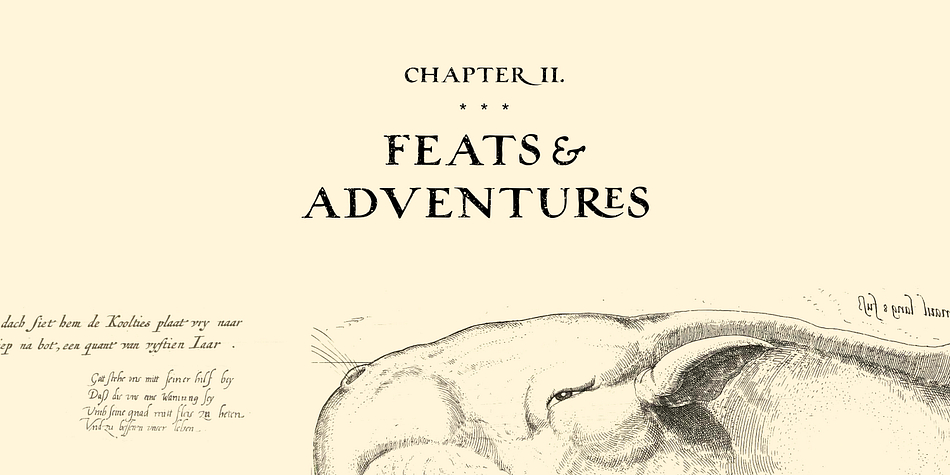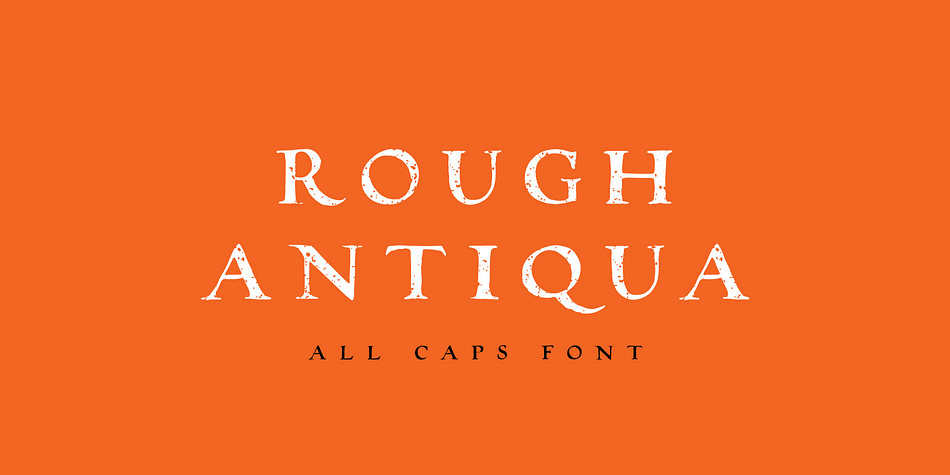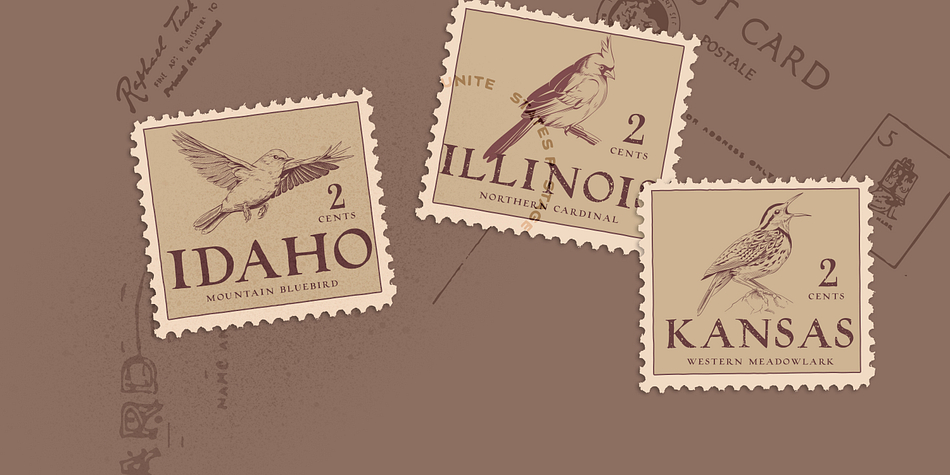
Rough Antiqua is a display serif, historical and serif font family. This typeface has two styles and was published by vatesdesign.
Rough Antiqua is All Caps vintage font inspired by hand inked letterforms from the Renaissance era. It has a lot of character and handmade classic feel to it. I personally use it a lot for book covers and labels. The font comes in 2 styles: Regular and Distressed. There are only Uppercase letters, digits, essential punctuation symbols, ampersand and numero signs, dollar and pound signs and basic mathematical symbols.